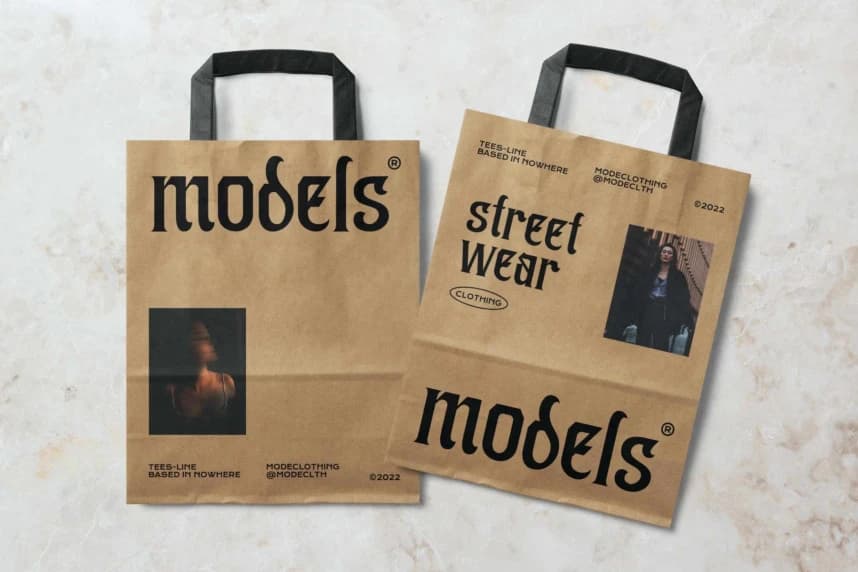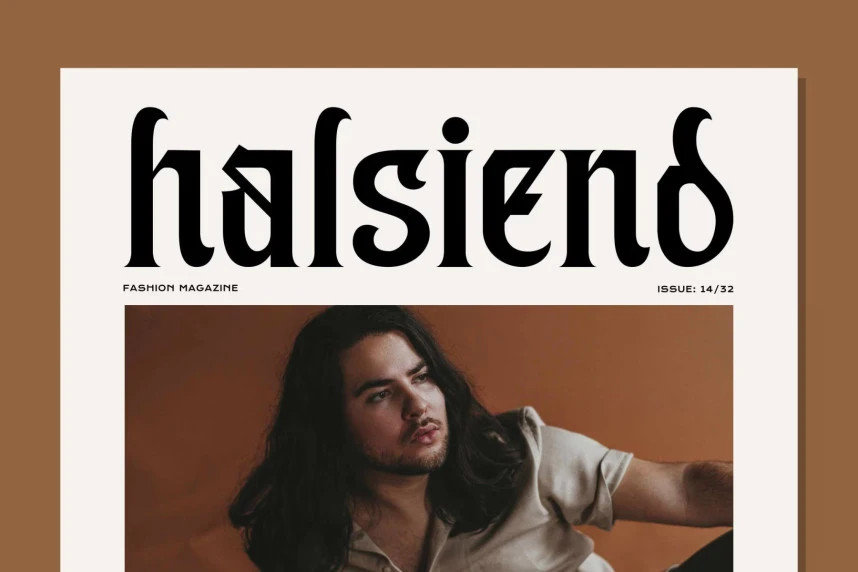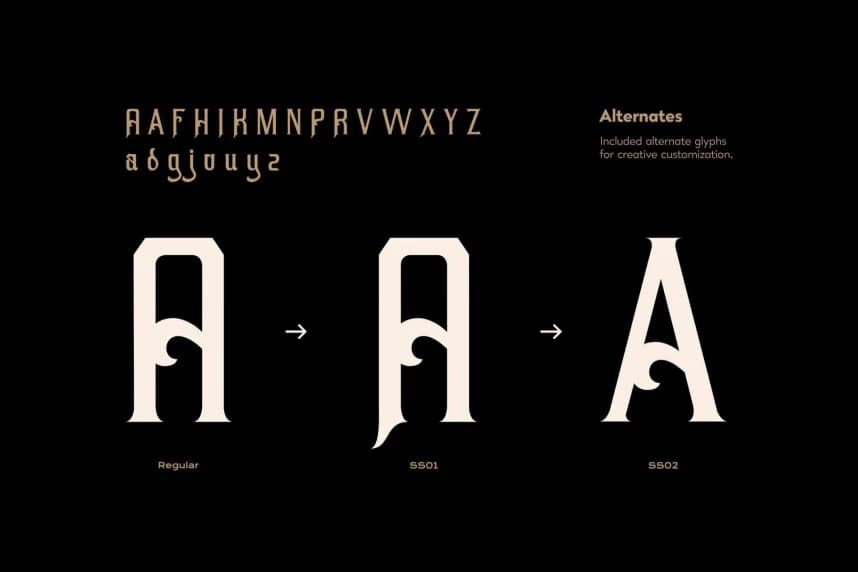
Kafehoc Font
Kafehoc Font is a modern blackletter display font that combines classic gothic aesthetics with contemporary elegance. Featuring sharp decorative strokes, smooth curves, and stylish ligatures, this typeface creates a bold yet sophisticated visual appearance.